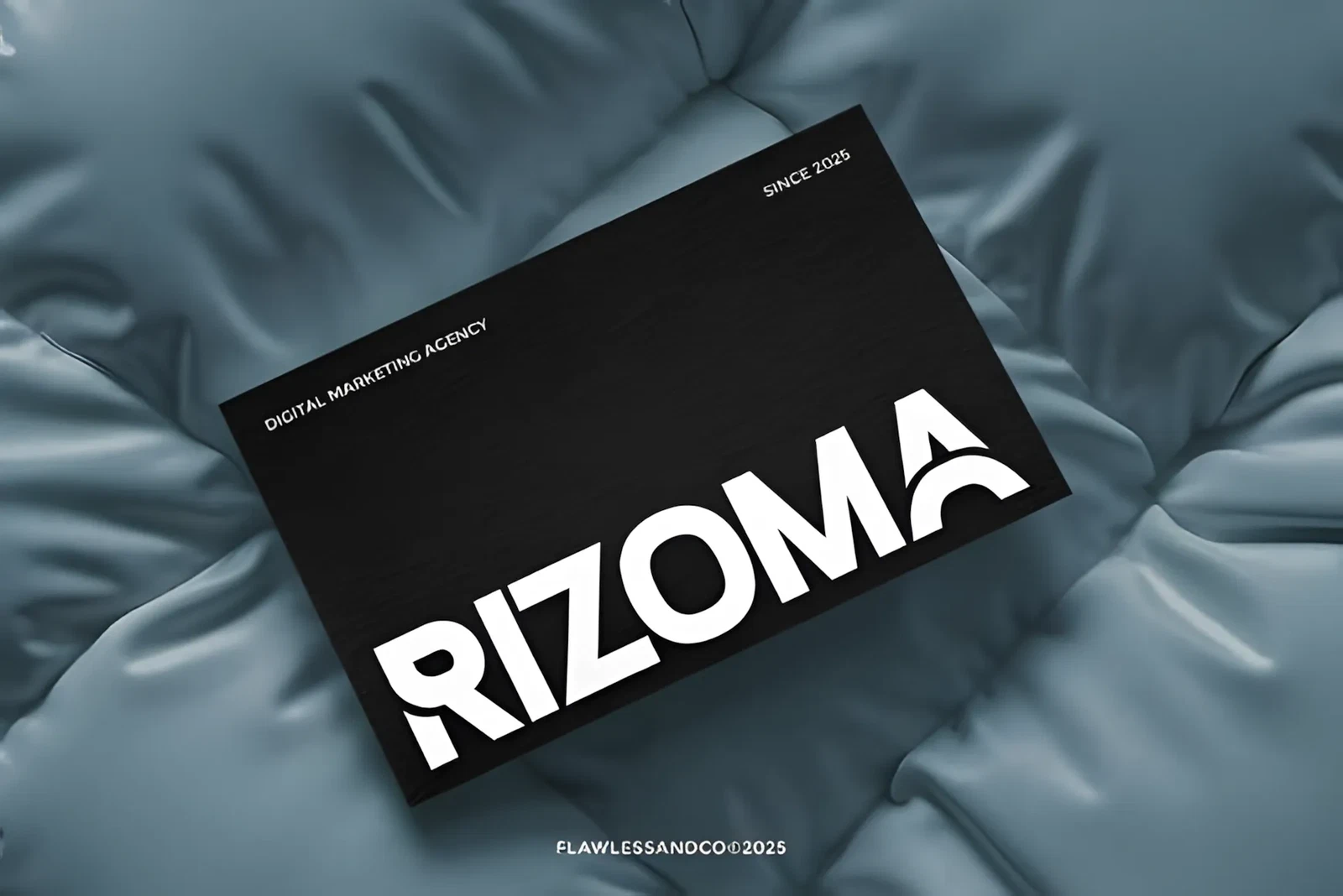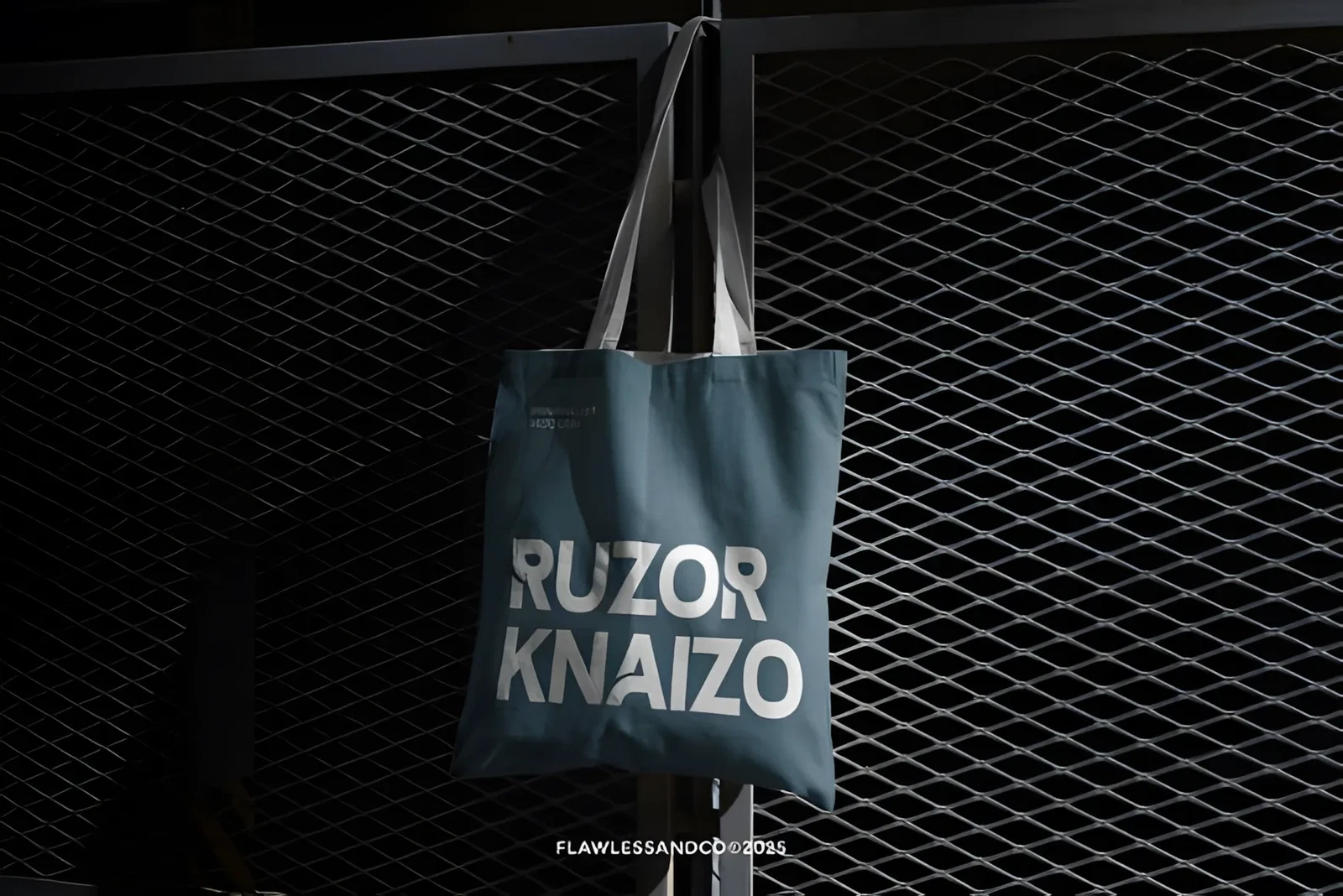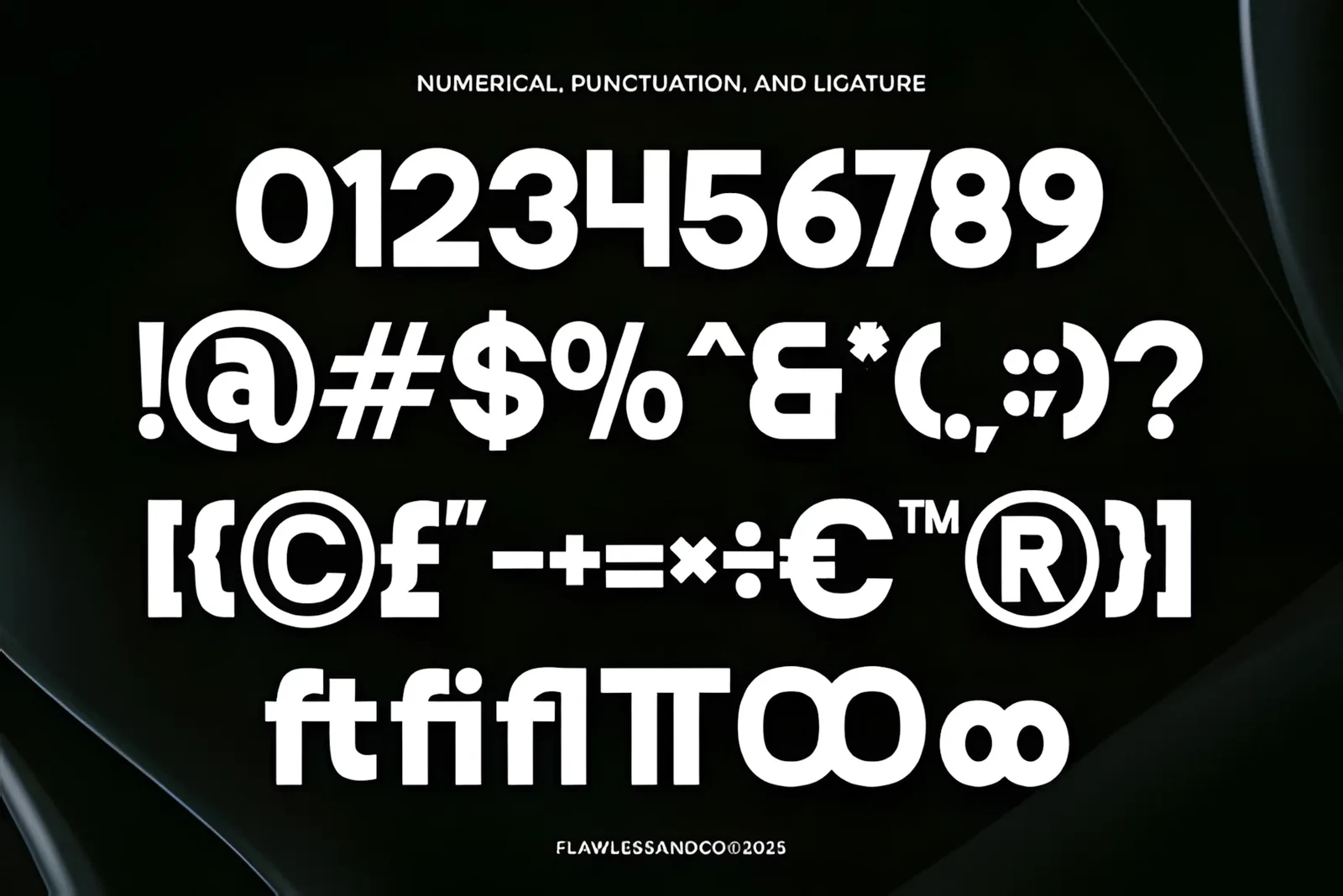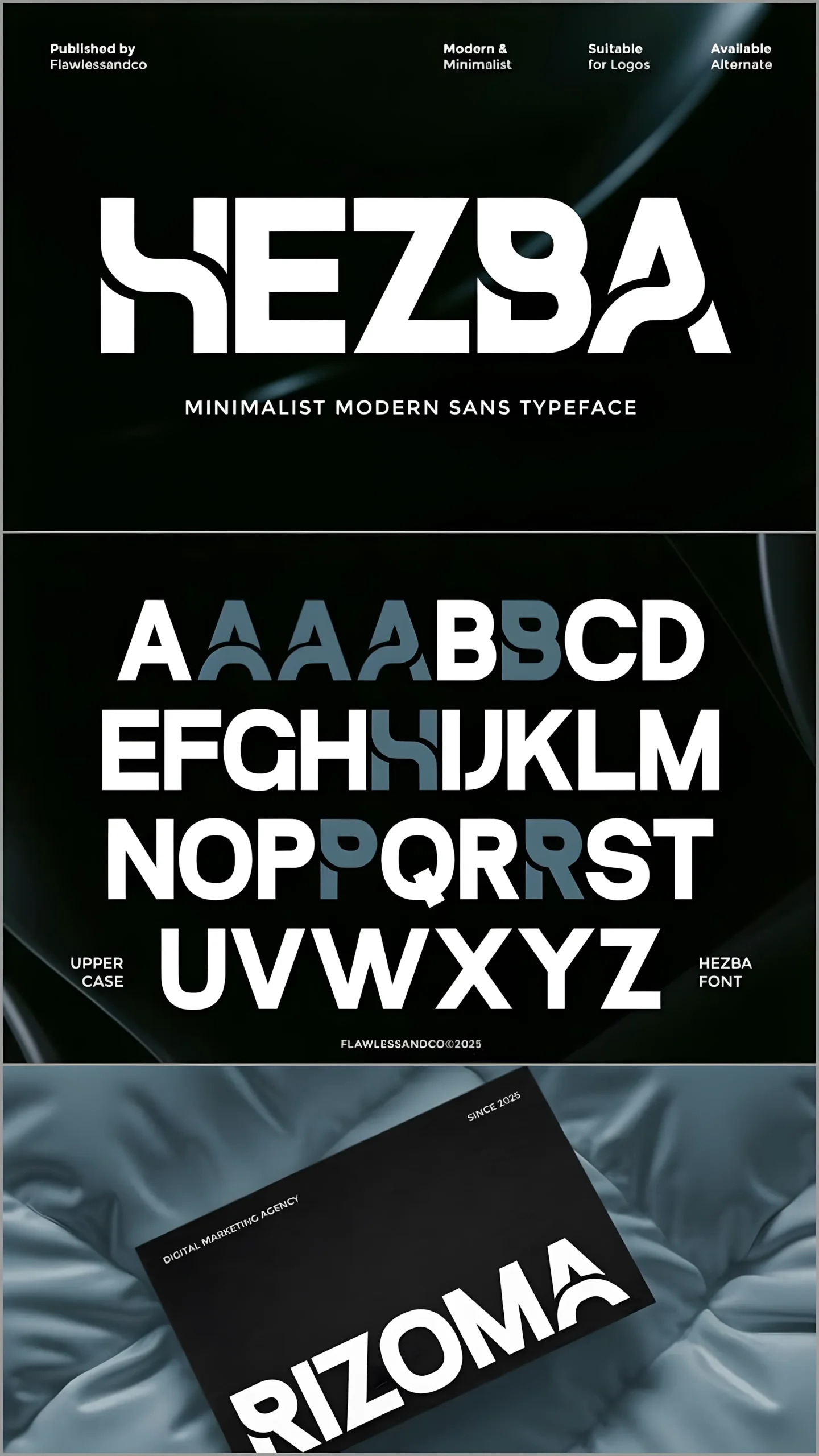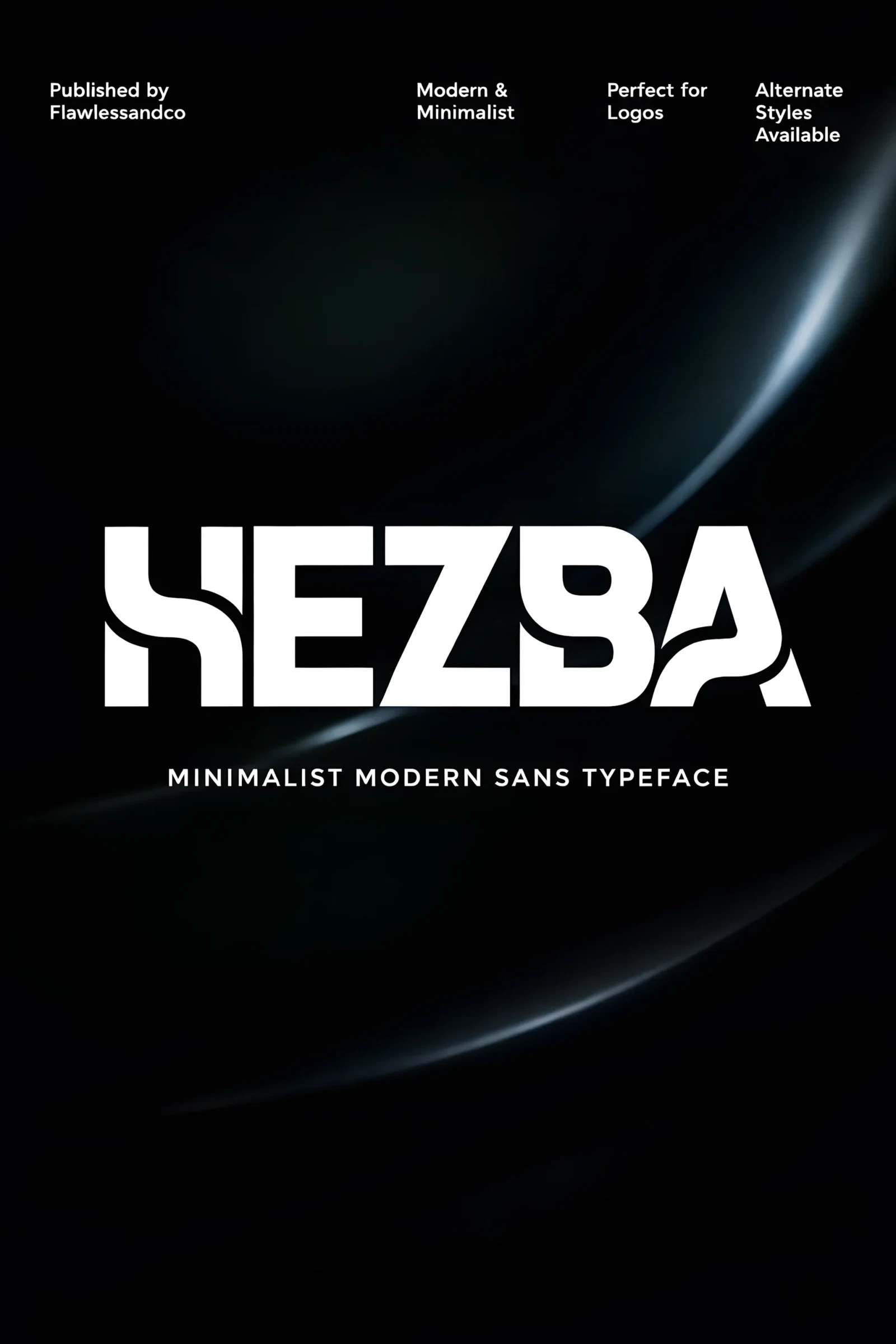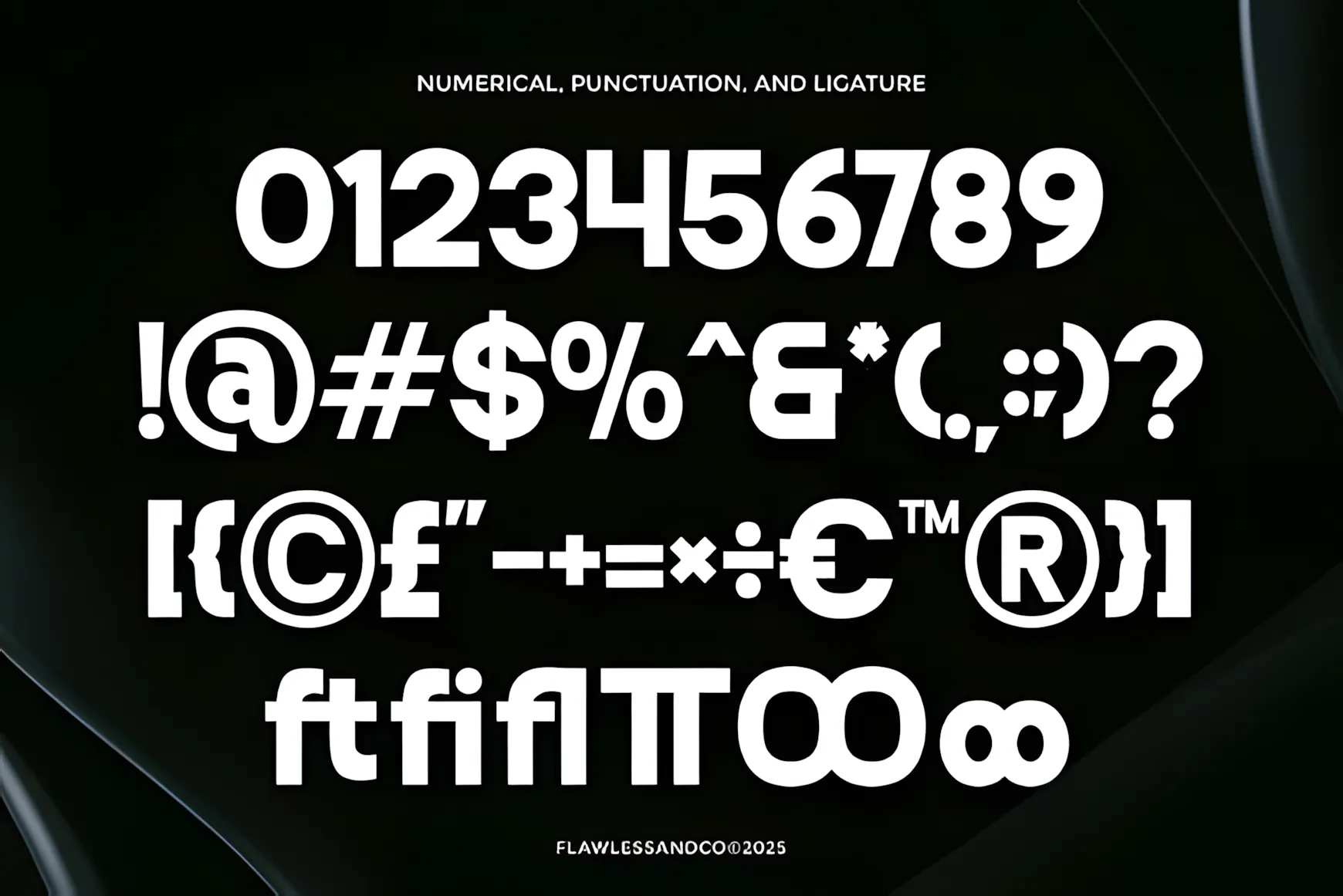
Modern design often depends on restraint. Hezba Font is a clean, minimalist sans-serif typeface created for designers who value structure, clarity, and contemporary aesthetics. It delivers a strong visual presence without excess, making it ideal for projects where typography must feel confident yet unobtrusive.
This font is designed to work quietly and effectively, supporting content rather than competing with it.
Clean Structure With Contemporary Balance
Hezba is built on sharp structure and balanced proportions. Each letterform is carefully shaped to feel modern and controlled, while smooth curves soften the overall appearance. This balance allows the font to remain readable and visually calm across different formats and sizes.
The design avoids unnecessary stylistic elements. Instead, it relies on proportion and spacing to create a professional and timeless feel. This makes Hezba especially suitable for long-term branding and reusable design systems.
Visual Character and Typography Feel
Hezba feels modern, minimal, and purposeful. It carries a neutral tone that adapts easily to different industries without imposing a strong stylistic identity.
Key visual qualities include:
- clean sans-serif geometry
- sharp but smooth letterforms
- consistent spacing
- strong legibility across sizes
The font performs equally well in uppercase and lowercase settings, maintaining clarity and balance in both display and functional text.
Where Hezba Font Works Best
Branding and Logo Design
Hezba is well suited for branding projects that require clarity and professionalism. It works effectively for:
- corporate identities
- startup branding
- modern logos and wordmarks
- clean visual identity systems
The neutral design allows brand colors, layouts, and imagery to take focus while typography provides structure.
Editorial and Marketing Layouts
In editorial and marketing contexts, Hezba offers order and readability. It fits naturally into:
- brochures and presentations
- reports and business materials
- posters and promotional designs
Text remains clear even in dense layouts, helping maintain visual consistency.
Digital, Web, and UI Design
Hezba performs reliably on screens, making it a strong choice for digital projects. It works well for:
- websites and landing pages
- user interface text
- dashboards and applications
The font includes:
- uppercase and lowercase letters
- numbers and punctuation
Its minimalist design ensures it remains useful across multiple projects without feeling outdated or trend-dependent.
Why Minimal Sans-Serif Fonts Stay Relevant
Minimalist sans-serif fonts continue to dominate modern design because they prioritize clarity and adaptability. Hezba fits perfectly into this category, offering a clean visual language that works across industries and platforms.
Its strength lies in simplicity — a quality that allows it to support content effectively over time.
Who Hezba Font Is Best For
Hezba is especially well suited for:
- graphic designers
- branding and identity specialists
- UI and UX designers
- agencies and studios
- anyone seeking a clean, modern sans-serif font
It works equally well for branding, editorial layouts, and digital interfaces.
Final Perspective
Hezba Font is built for clarity, balance, and modern communication. Its minimalist structure, smooth curves, and professional tone make it a dependable foundation for contemporary design projects.
For designers looking for a sans-serif font that delivers consistency without visual noise, Hezba offers a refined and reliable typographic solution that remains relevant across platforms and use cases.